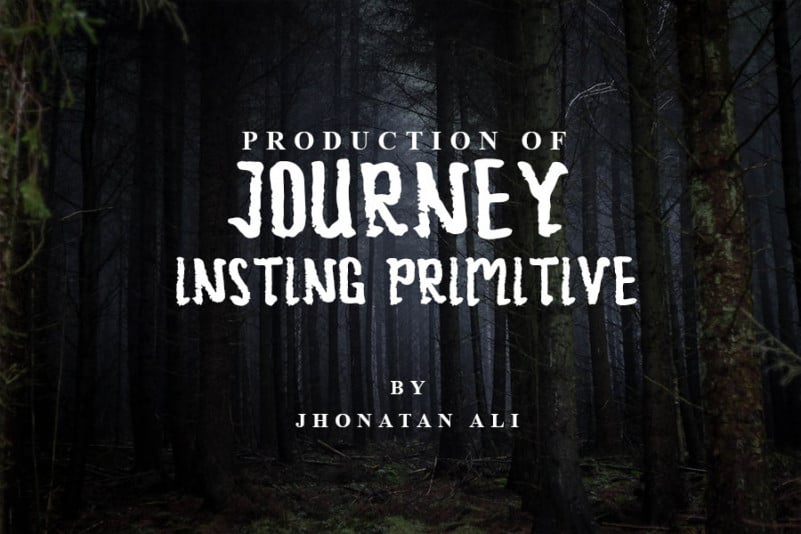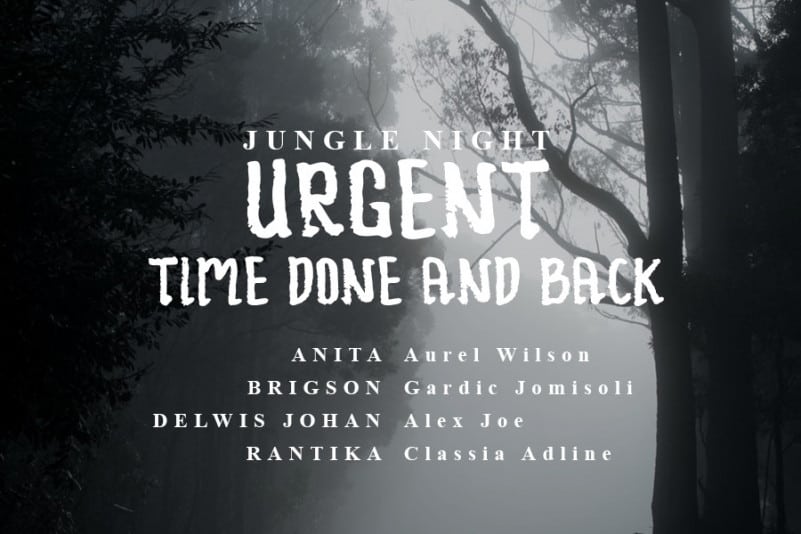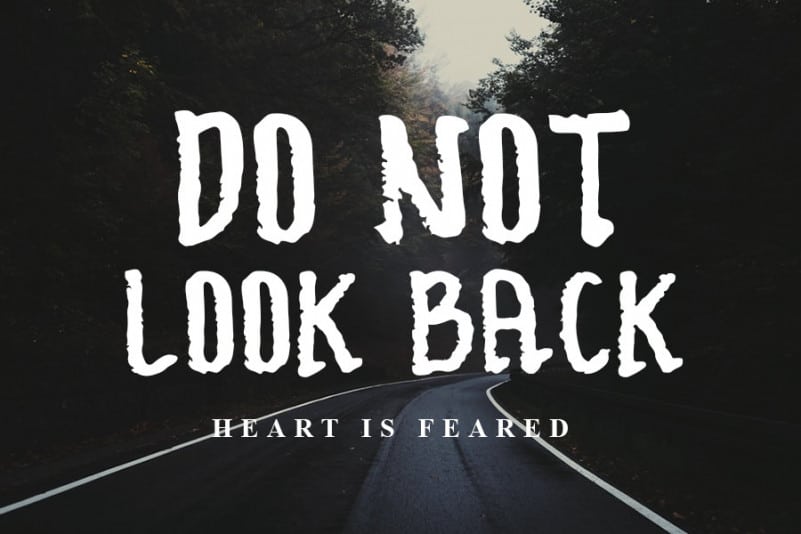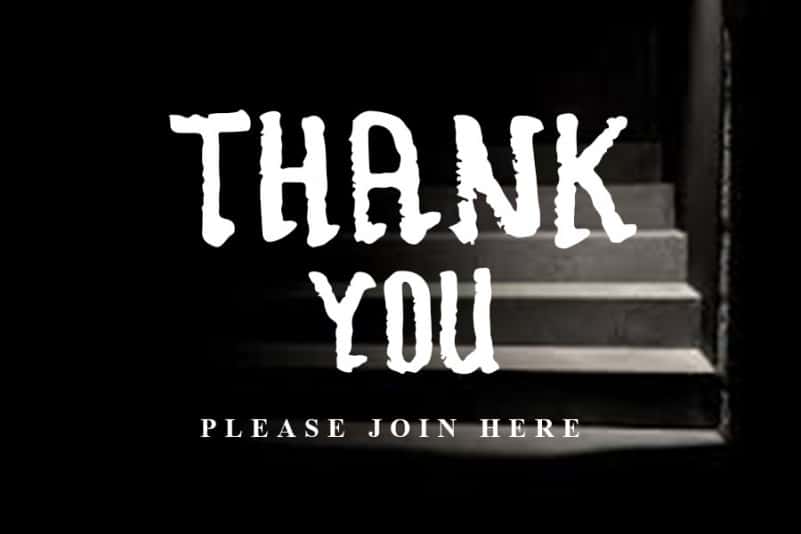
DRAGOON BOLD Display Font
DRAGOON BOLD Display Font is a great  Brush Font. It maintains its classy calligraphic influences while feeling contemporary and fresh. This versatility will appeal to a wide range of crafty ideas, from letterheads and titles to stationery.